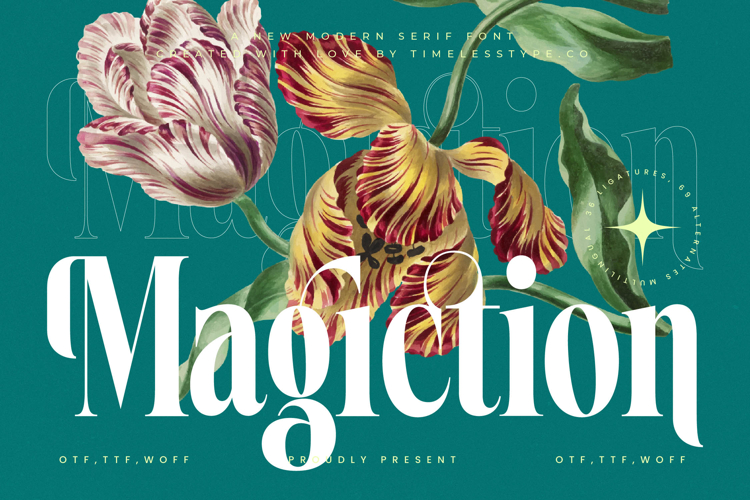
Magiction - New Modern Serif Font
Magiction is a modern serif display font that blends elegance, refinement, and expressive artistry. With its high-contrast strokes, graceful curves, and sharp serifs, this typeface radiates sophistication while maintaining bold presence. Designed with 36 ligatures and 69 alternates, Magiction offers designers a wide range of creative possibilities, ensuring typography remains fresh, versatile, and visually striking. Its balance between modern minimalism and classic flair makes it a timeless choice for projects that demand both beauty and impact.
This font excels in headline typography, where its tall proportions and refined shapes create maximum visibility and elegance across posters, banners, and editorials. In magazine design and book covers, Magiction enhances layouts with luxurious style, turning text into a captivating visual feature. For branding and logo design, it communicates prestige and memorability, making it perfect for high-end products, boutique identities, and creative businesses that want to leave a lasting impression.
Magiction is also highly effective in packaging design, particularly for perfumes, cosmetics, gourmet goods, or artisan products where typography must convey quality and sophistication. In event posters, wedding invitations, and advertising campaigns, the font’s stylish alternates and ligatures add a touch of artistry that elevates the overall aesthetic. For digital media, including websites and social platforms, Magiction brings a polished and timeless look to headers, promotional graphics, and visual storytelling.
Its versatility allows Magiction to adapt seamlessly to projects that combine luxury, elegance, and expressive creativity. With multilingual support, it also extends beyond borders, making it a practical choice for global campaigns and international branding.
Ultimately, Magiction is more than just a typeface—it is a visual signature of sophistication and timeless design. Whether used for editorials, branding, packaging, or digital media, it ensures that every project carries an air of exclusivity, style, and unforgettable presence.